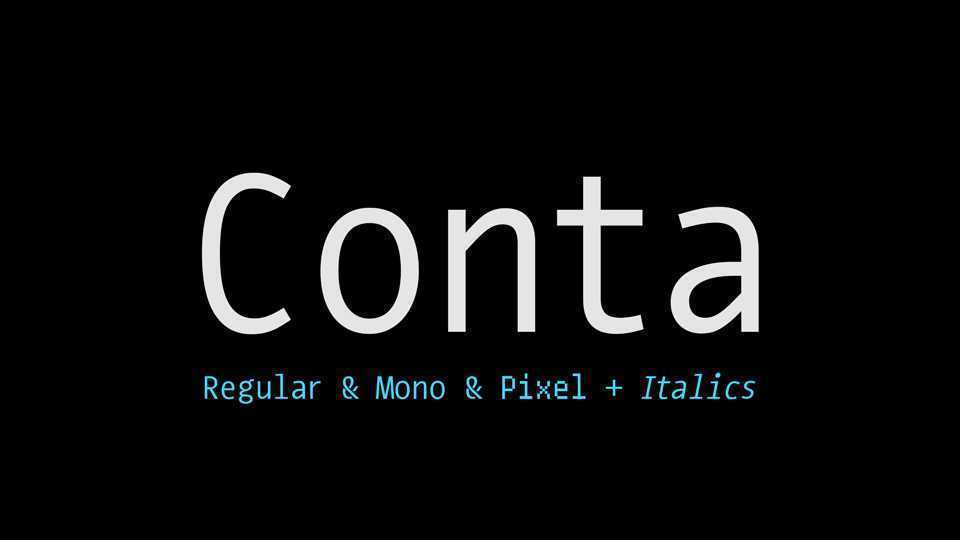
Download Conta typeface, an another coding font family, containing monospaced and proportional, pixel variants and matched Italics. Conta perfectly fits for programming, intefaces, tables and oher uses.